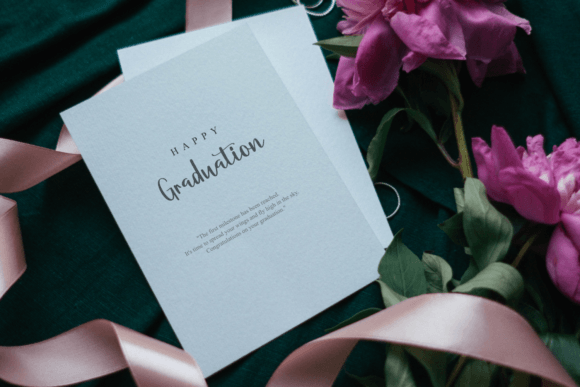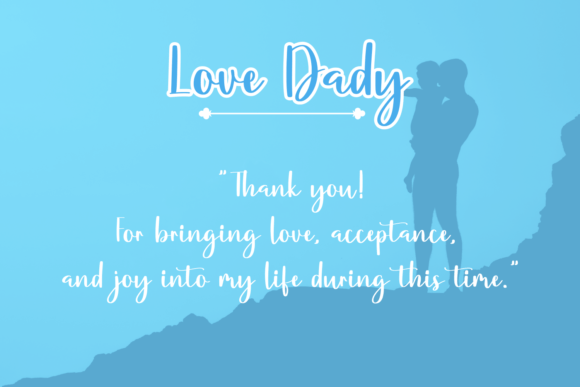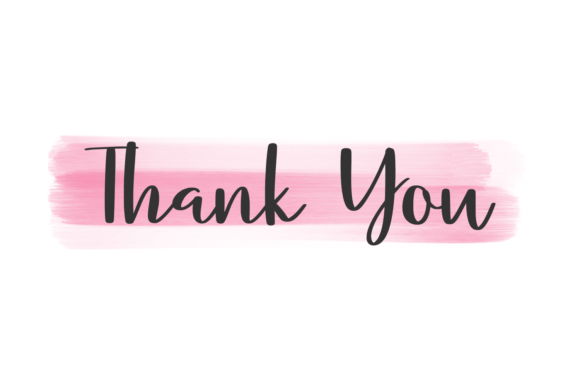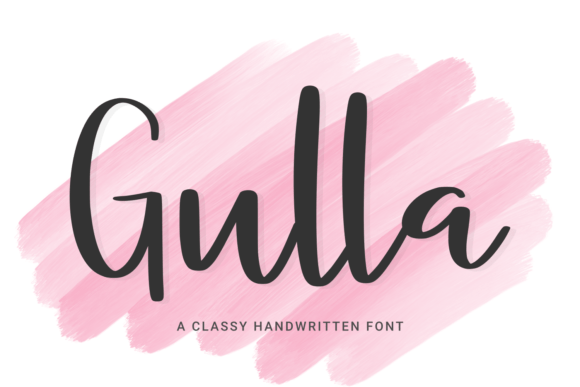
Gulla Font: Elevate Your Designs with a Simple yet Stunning Handwritten Font
Are you tired of using the same old fonts in your designs? Look no further than Gulla Font, a beautiful and simple handwritten font that’s sure to take your creations to the next level. With its neat and elegant style, Gulla is perfect for adding a personal touch to your logos, labels, branding, invitations, websites, and quotes.
What is Gulla Font?
Gulla Font is a modern handwritten font that’s designed to be both simple and stylish. Its clean lines and classic look make it versatile and easy to read, while its unique charm adds a touch of personality to any design. Whether you’re a designer, crafter, or DIY enthusiast, Gulla Font is a great addition to your font collection.
Key Features of Gulla Font
- Simple and Neat: Gulla Font features a clean and elegant design that’s perfect for creating beautiful and easy-to-read text.
- Handwritten Style: With its handwritten style, Gulla Font adds a personal touch to any design, making it perfect for invitations, quotes, and other creative projects.
- Versatile: Gulla Font can be used in a variety of design applications, from logos and branding to websites and social media graphics.
- Easily Readable: Gulla Font is designed to be easy to read, making it perfect for body text, headings, and titles.
How to Use Gulla Font in Your Designs
Gulla Font is easy to use and can be incorporated into your designs in a variety of ways. Here are a few ideas to get you started:
- Logos and Branding: Use Gulla Font to create a unique and memorable logo or add it to your brand’s typography for a personal touch.
- Invitations and Stationery: Add Gulla Font to your invitations, greeting cards, and other stationery for a beautiful and elegant touch.
- Websites and Blogs: Use Gulla Font as a heading or body font on your website or blog to add a touch of personality and style.
- Social Media Graphics: Incorporate Gulla Font into your social media graphics, such as quote graphics, Facebook posts, and Instagram stories.
Benefits of Using Gulla Font
Using Gulla Font in your designs can have a number of benefits, including:
- Increased Readability: Gulla Font is designed to be easy to read, making it perfect for body text and other long-form content.
- Unique Style: Gulla Font adds a unique and personal touch to your designs, setting them apart from the competition.
- Versatility: Gulla Font can be used in a variety of design applications, making it a great addition to your font collection.
- Time-Saving: With Gulla Font, you can create beautiful and professional-looking designs in no time.